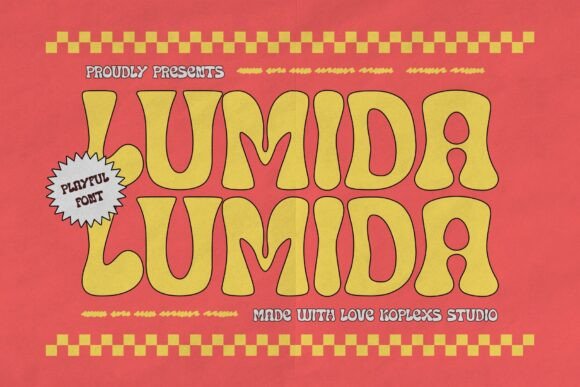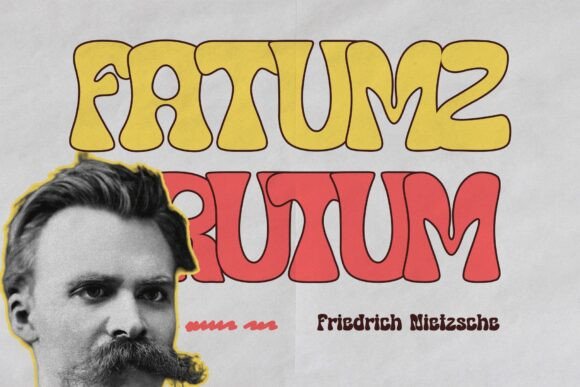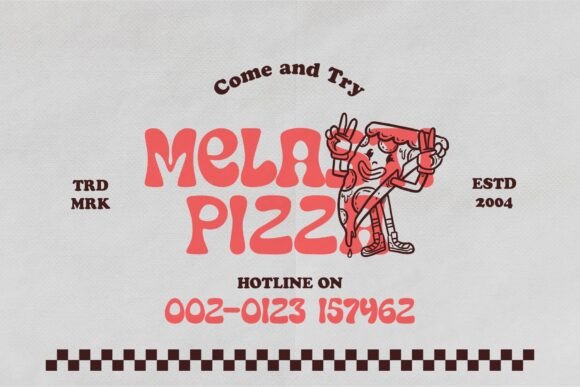
Lumida Font: Groovy Retro Font for Playful Designs & Cricut Projects
About the Lumida Font
Meet Lumida Font, a stunning font that brings a touch of elegance and professionalism to any design. Looking for a font that screams fun, creativity, and retro charm? Look no further than Lumida, a playful groovy font designed to add a spark of joy to all your creative projects. Whether you’re working on branding, posters, packaging, or even merchandise like tote bags, Lumida is here to steal the spotlight. Its bold curves and nostalgic design will instantly transport your audience to a world filled with vibrant energy and artistic flair.
Lumida’s bold, playful energy makes it ideal for headlines, short text blocks on posters, and eye-catching packaging designs. It’s perfect for brands targeting a younger demographic or those wishing to project a fun, retro aesthetic. However, its highly stylized forms make it less suitable for body text or UI elements requiring high readability.
To balance Lumida’s playful curves, consider pairing it with a clean sans-serif like Open Sans for body copy or a geometric sans-serif like Futura for a more modern feel. For a touch of elegance, a subtle serif like Garamond could be used sparingly as a contrast. Avoid pairing it with other highly decorative fonts, as this could lead to visual overload.
Lumida’s core personality is best described as retro-modern and playful, making it a strong choice for projects needing a vibrant and nostalgic feel.